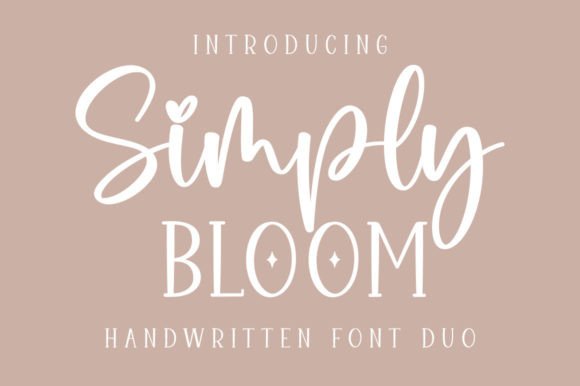
Introducing Simply Bloom Duo Font, the epitome of elegance and charm in the world of fonts. Created by the talented team at Graphix Line Studio, this script font family is simply the best choice for all your script font needs. With the captivating keyword "Best Font For Script," Simply Bloom is here to elevate your designs and captivate your audience.
Simply Bloom Duo Font is a dynamic duo that will take your creative projects to new heights. Comprising of two fonts meticulously designed to complement each other, this font family offers endless possibilities for your artistic endeavors. Whether used together or separately, these fonts will effortlessly add a touch of chic and cheeriness to your crafts, making them truly stand out.
One of the standout features of Simply Bloom Duo Font is its PUA encoding, which allows you to effortlessly access all the glyphs and swashes that this font has to offer. Say goodbye to limitations and hello to endless creativity! With a few simple keystrokes, you can effortlessly enhance your designs, adding swirls, flourishes, and unique touches that will leave a lasting impression on your audience.
Imagine the joy of creating stunning wedding invitations, beautiful greeting cards, or captivating social media posts with the help of Simply Bloom Duo Font. Its elegant and flowing script will evoke a sense of romance and sophistication, instantly capturing the hearts of those who lay their eyes upon your creations. Let your imagination run wild as you explore the versatility of this font family, allowing it to breathe life into your projects.
Embrace the power of Simply Bloom Duo Font and unlock a world of creative possibilities. Whether you're a professional designer or a passionate hobbyist, this font family is your secret weapon for creating visually stunning and emotionally resonant designs. Let your creativity bloom and watch as your audience falls head over heels for your work.